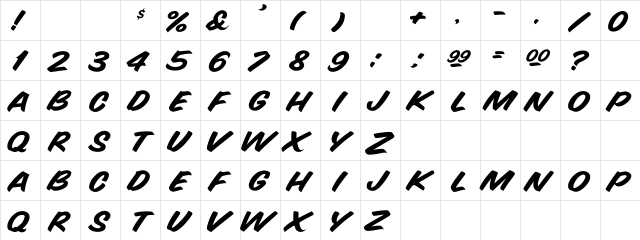
SnyderSpeed Wd Regular Free Font
SnyderSpeed Wd Regular
Design Context for SnyderSpeed Wd
SnyderSpeed Wd is a composed and adaptable typeface that performs quietly and consistently across a wide range of design contexts.